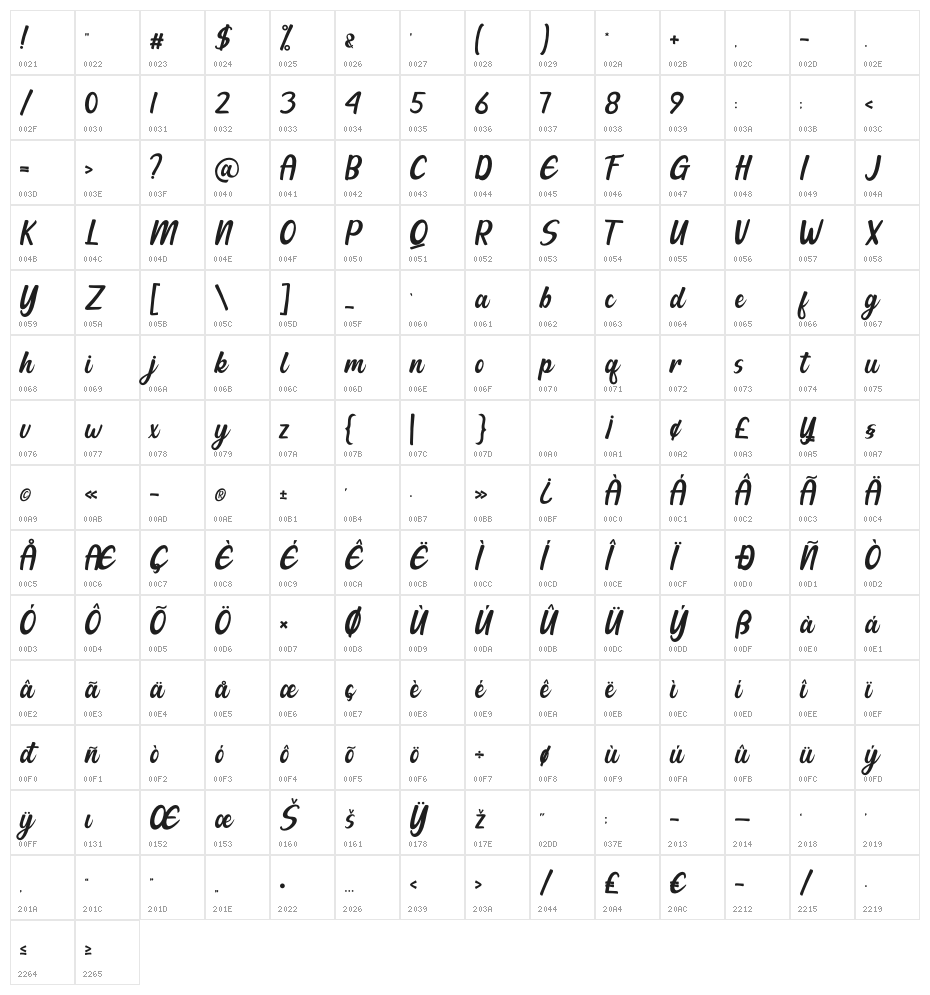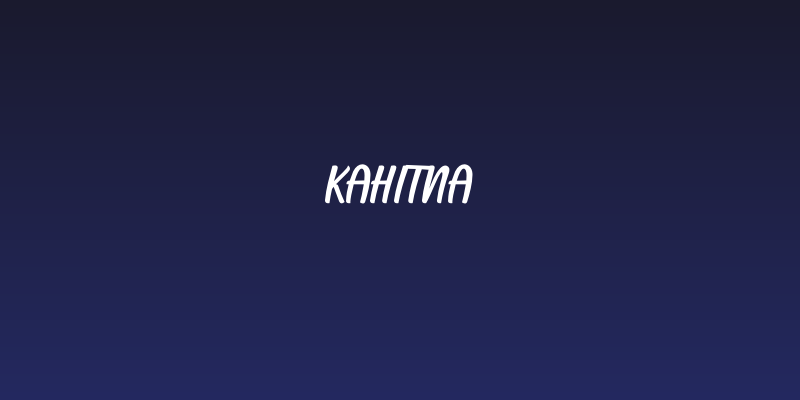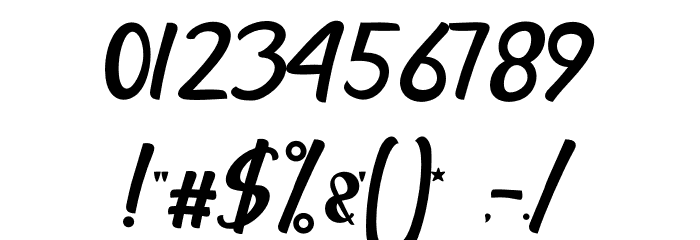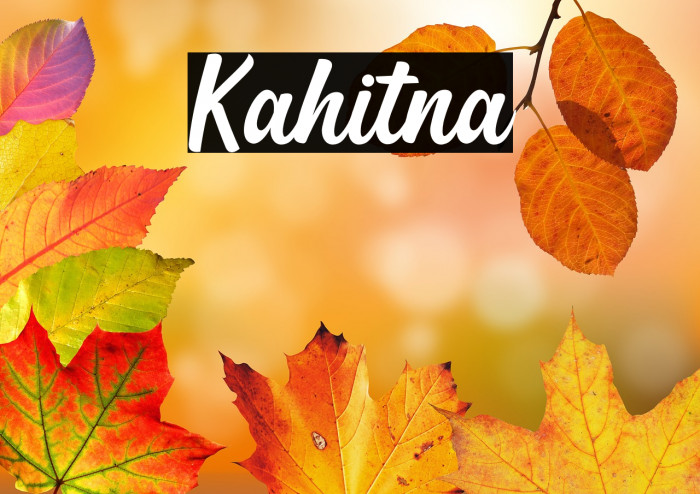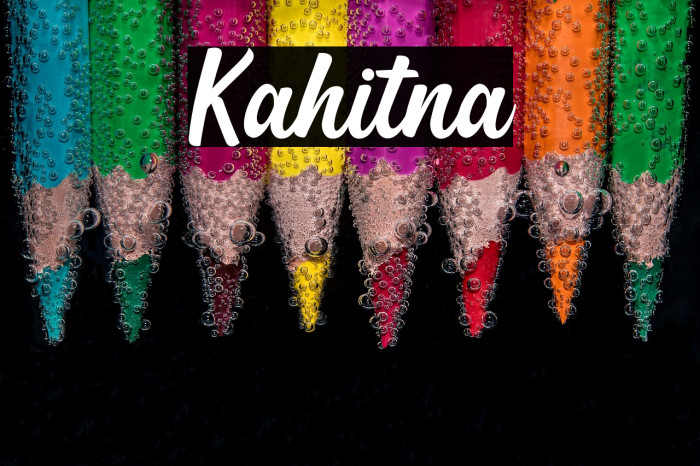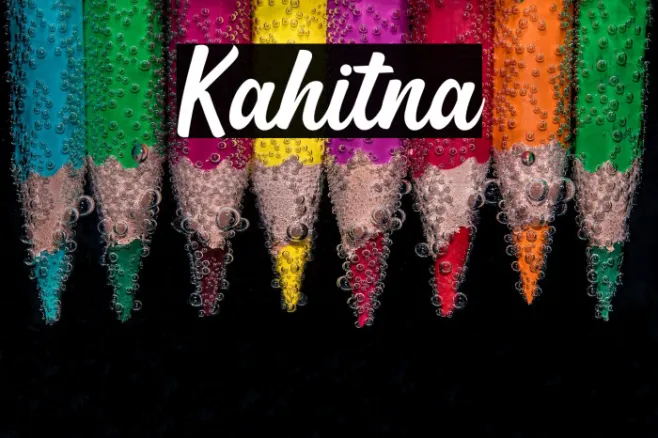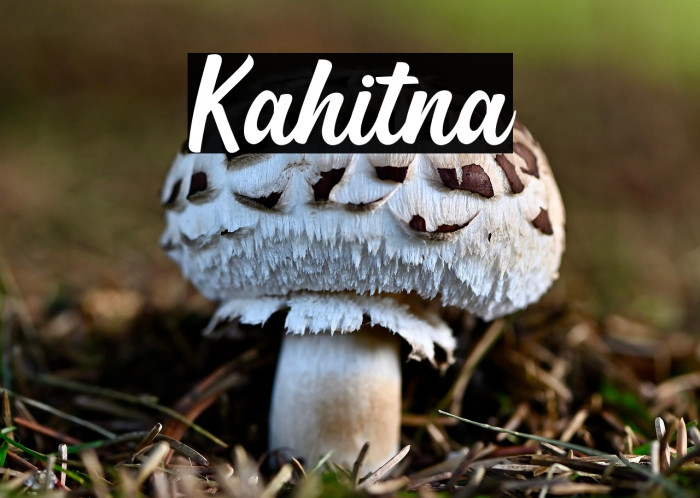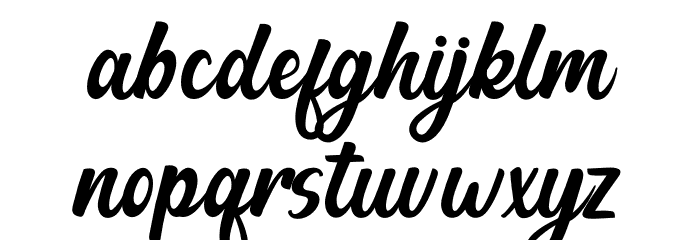
Kahitna Font
Kahitna Description
This font features a dynamic and fluid script style, characterized by its smooth, flowing curves and slightly slanted orientation. The uppercase letters are bold and prominent, with a consistent stroke width that adds to their legibility. The lowercase letters maintain the same fluidity, with some characters featuring distinctive loops and swashes that enhance the font's expressive nature. The numerals are clear and easy to read, matching the overall style of the alphabet. Special characters are included, maintaining the same stylistic elements, making this font versatile for various applications.